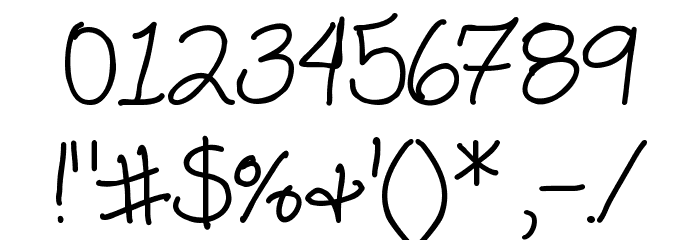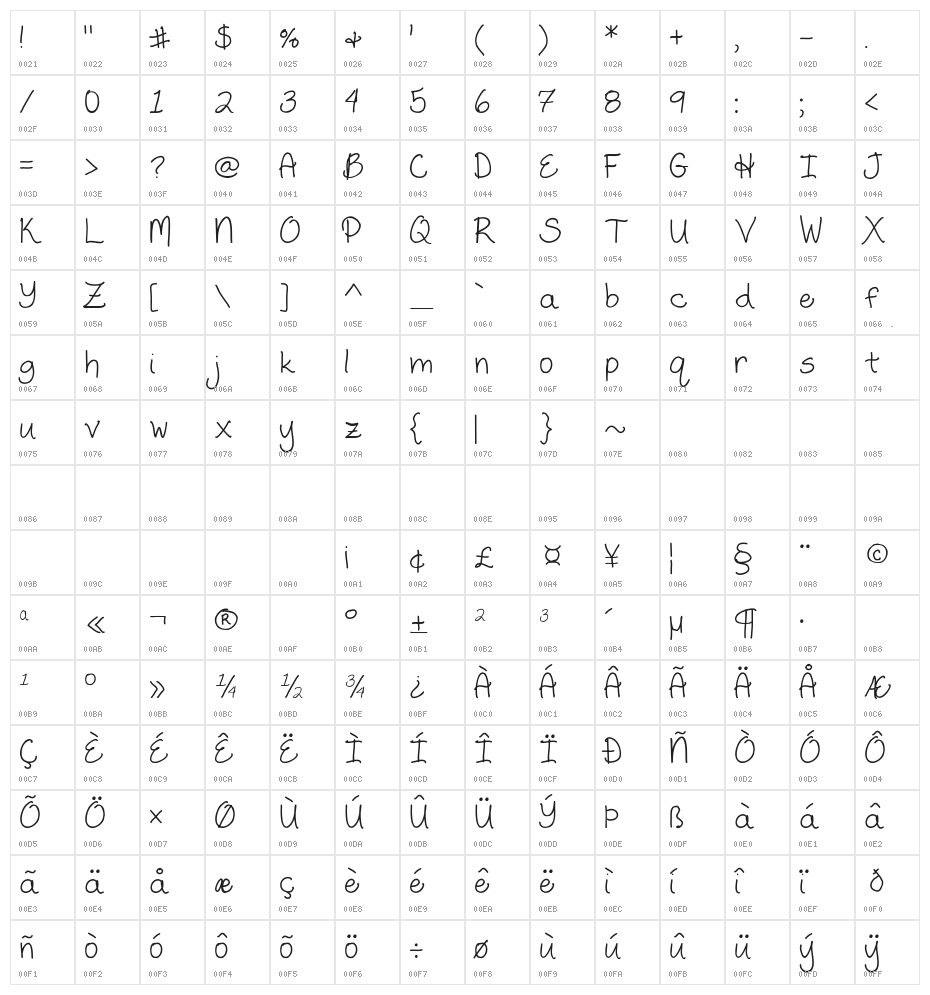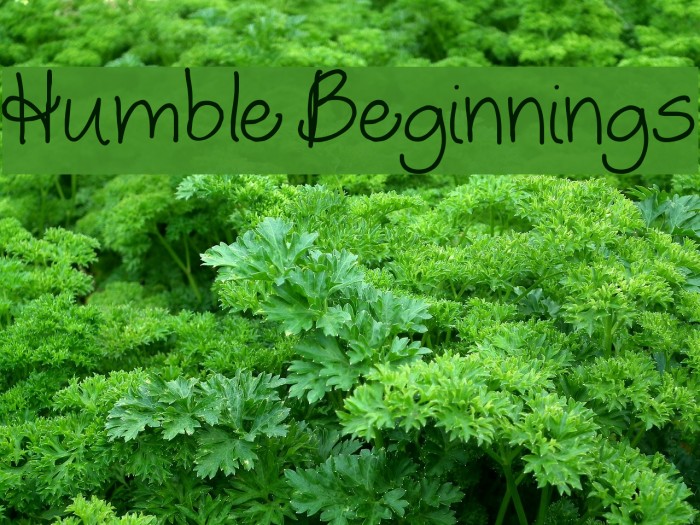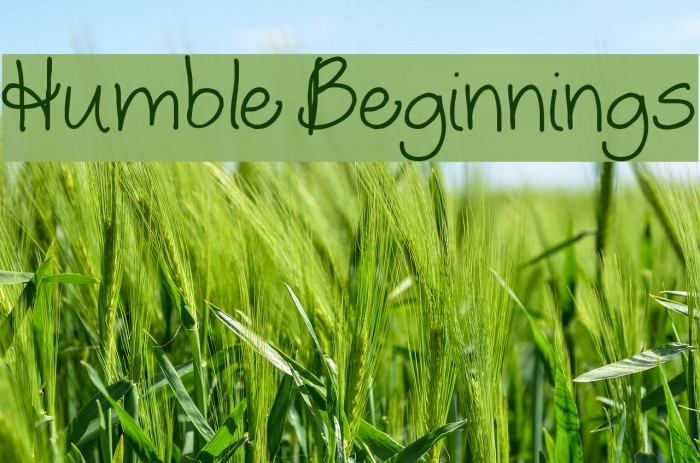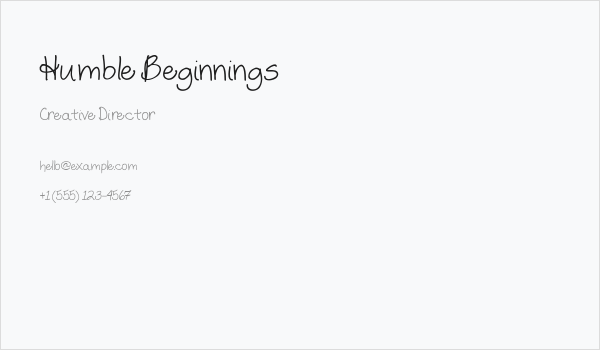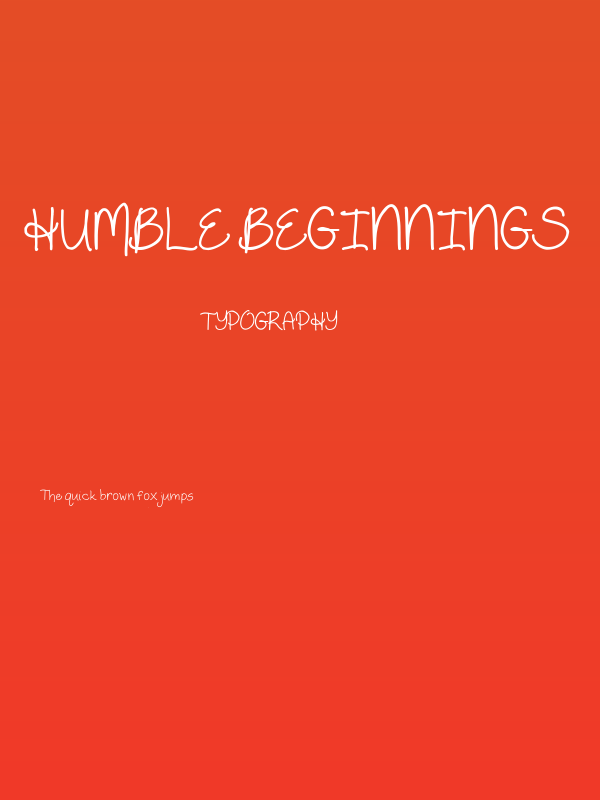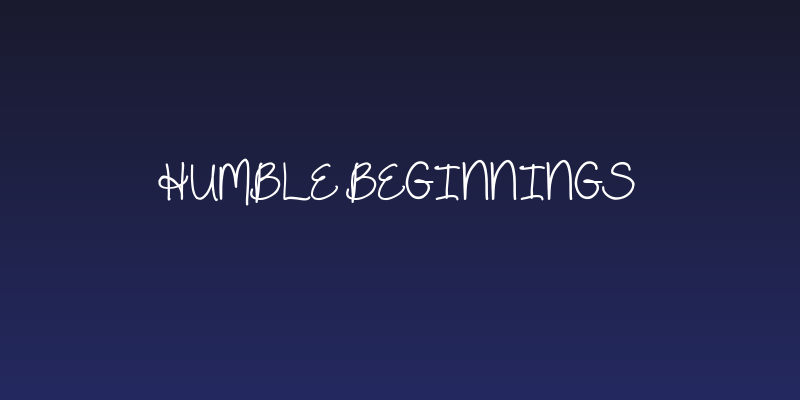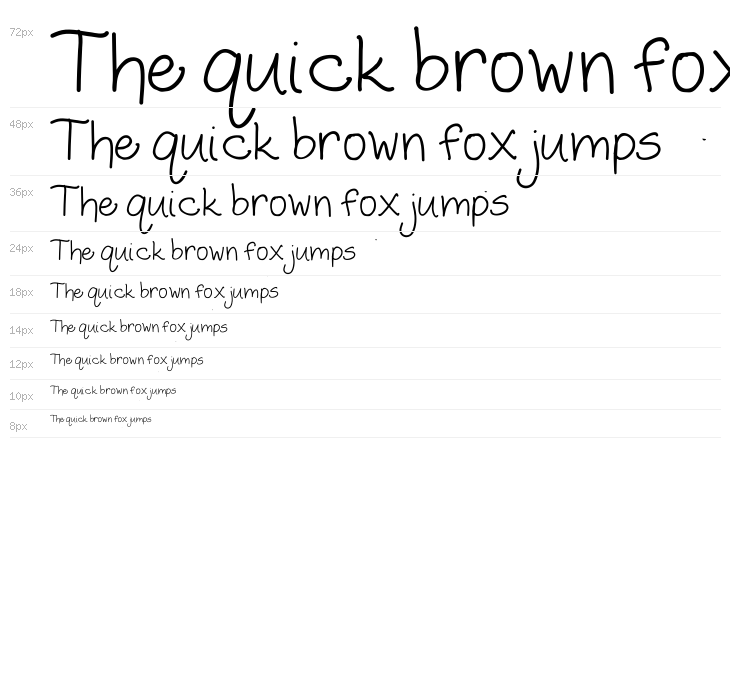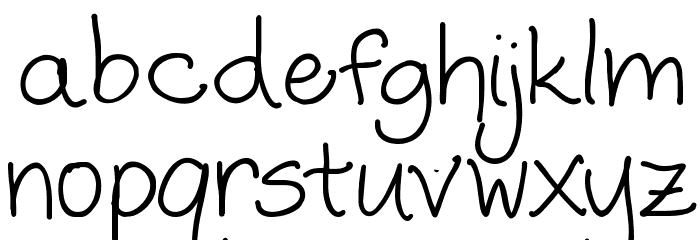
Humble Beginnings Font
Humble Beginnings Description
This font exudes a playful and casual handwritten style, characterized by its smooth, flowing lines and slightly irregular shapes. The letters are rounded and have a friendly, approachable feel, making it ideal for informal and creative projects. The uppercase and lowercase letters maintain a consistent style, with a slight slant that adds to the handwritten effect. The numerals and special characters are crafted with the same playful touch, ensuring a cohesive look across all text elements. This font is perfect for projects that require a personal, human touch, such as greeting cards, invitations, or children's book illustrations.
| Proposed Projects | Greeting cards, invitations, children's books, personal blogs, and creative branding. |